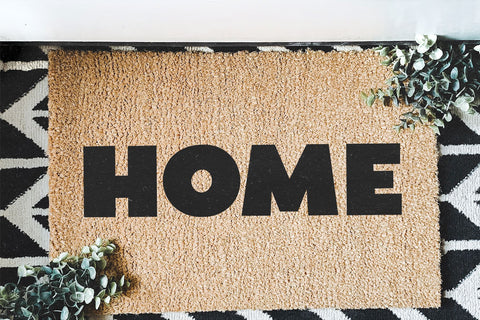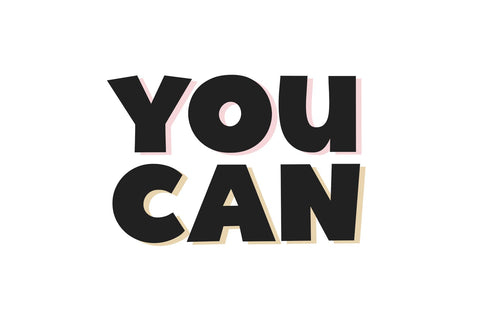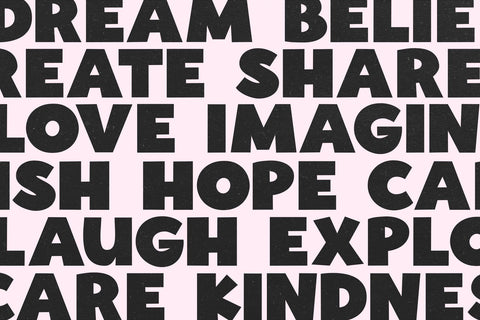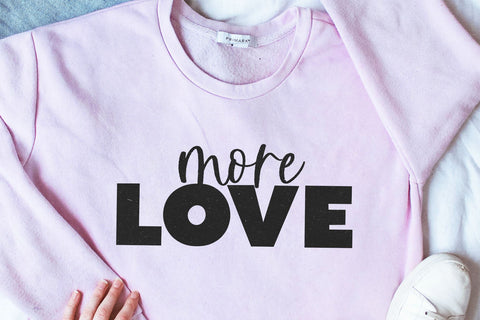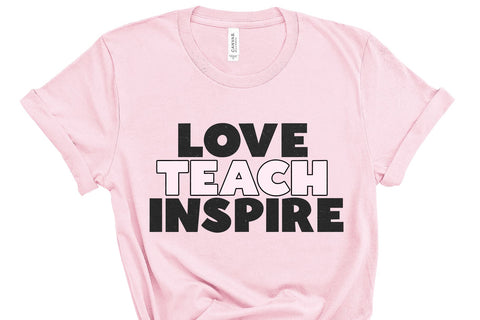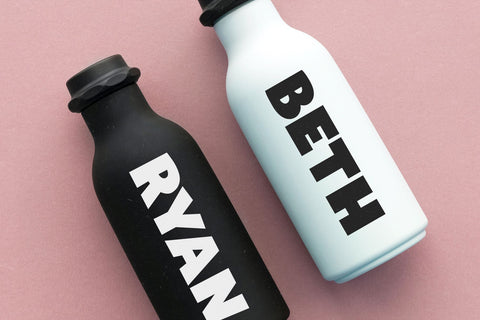
Make - Bold Handwritten Font
Make is a big, bold handwritten font!
This font is perfect for cricut projects, procreate designs, shirts, svg designs, home decor, branding, logos, invitations and more!